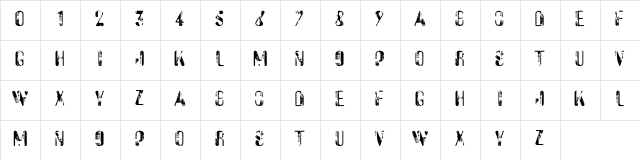
Sucata Spacial Regular
Design Context for Sucata Spacial Typeface
Sucata Spacial is a composed and adaptable typeface that performs quietly and consistently across a wide range of design contexts.